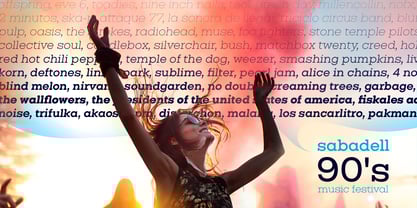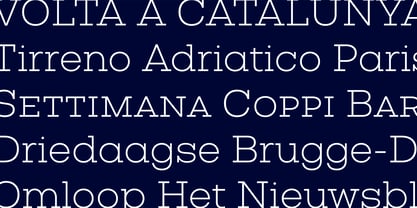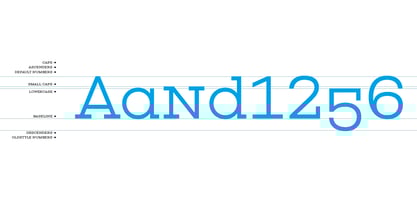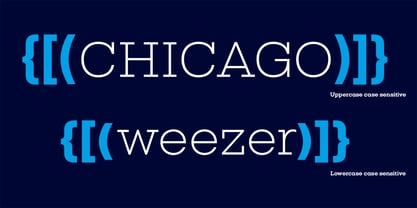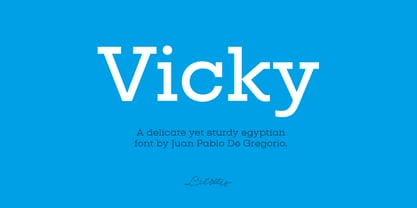
Vicky Font
This Vicky Font is perfect for playful children's branding, friendly service logos, casual lifestyle materials, approachable business communications, warm greeting cards, personal blog designs, cheerful social media graphics, community event promotions, family-oriented packaging, and inviting brand personalities.
What makes this Vicky Font exciting is its naturally friendly character that embodies warmth, approachability, and genuine human connection. The font features personable letterforms with gentle curves and welcoming proportions that create immediate comfort and trust. Its relatable personality and down-to-earth charm make it ideal for brands seeking to communicate authenticity, friendliness, and personal connection in service-oriented and community-focused markets.
The Vicky Font family includes light, regular, medium, and bold weights with friendly alternates and personal variants. This comprehensive approachable font family provides designers with personable typographic tools to create warm, inviting compositions while maintaining the friendly character essential for personal and community-focused brand communications.
Service businesses and community brands consistently choose Vicky Font Free Download for projects requiring genuine warmth and personal appeal. This font's distinctive friendly character perfectly captures the authentic human connection and approachable service that resonate with audiences who value personal relationships and trustworthy, down-to-earth business experiences.
The welcoming construction of Vicky Font showcases naturally comfortable letterforms with friendly proportions that ensure excellent readability across all personal applications. Its approachable appearance and warm details create memorable connections while maintaining the clarity necessary for effective personal branding and community communication.
Professional designers appreciate how Vicky Font brings immediate warmth and personal authenticity to brand communications. The font's friendly nature allows organizations to communicate genuine care and personal service while maintaining the professional quality necessary for effective positioning in service-oriented and community-focused markets.
The personal appeal of Vicky Font makes it particularly effective for brands emphasizing human connection, personal service, and community values. Its friendly character resonates strongly with audiences who appreciate authentic relationships, personal attention, and businesses that prioritize genuine human connection over corporate formality.
Whether developing branding for personal service businesses or creating materials for community organizations, Vicky Font Free Download provides the warm, personal typographic foundation that relationship-focused brands need to communicate their genuine care, friendly service, and the authentic human connection that defines successful personal and community-oriented business relationships.